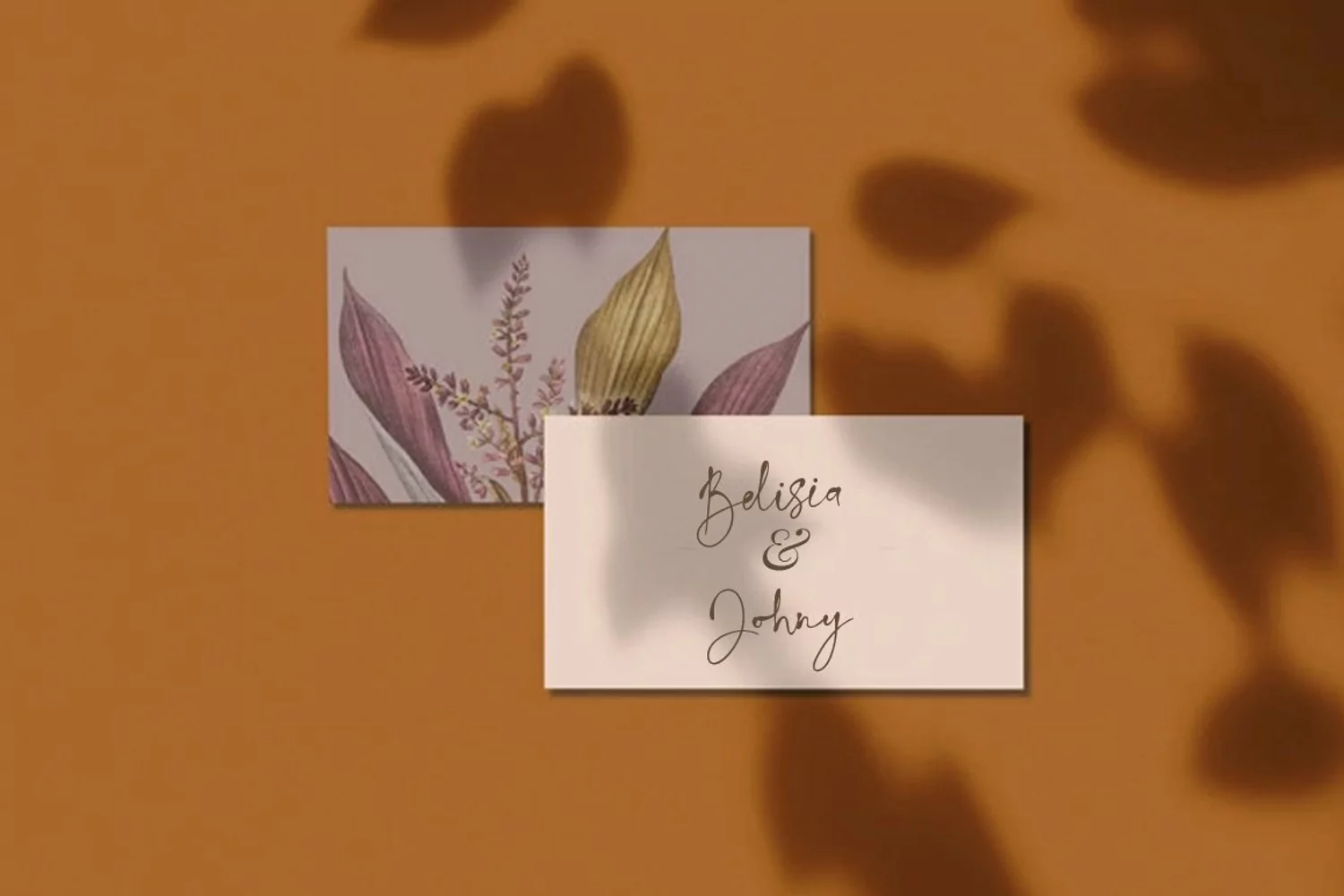
La Calston is thin and friendly handwritten font. Clean and a little bit quirky, this font is the perfect fit for all of your logos, branding, social media, and crafty DIY projects.
This Font is perfect for branding projects, logo, wedding designs, social media posts, advertisements, product packaging, tshirt design, product designs, label, photography, watermark, invitation, stationery and any projects.